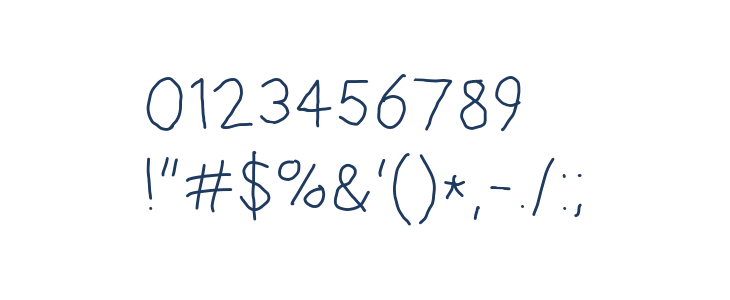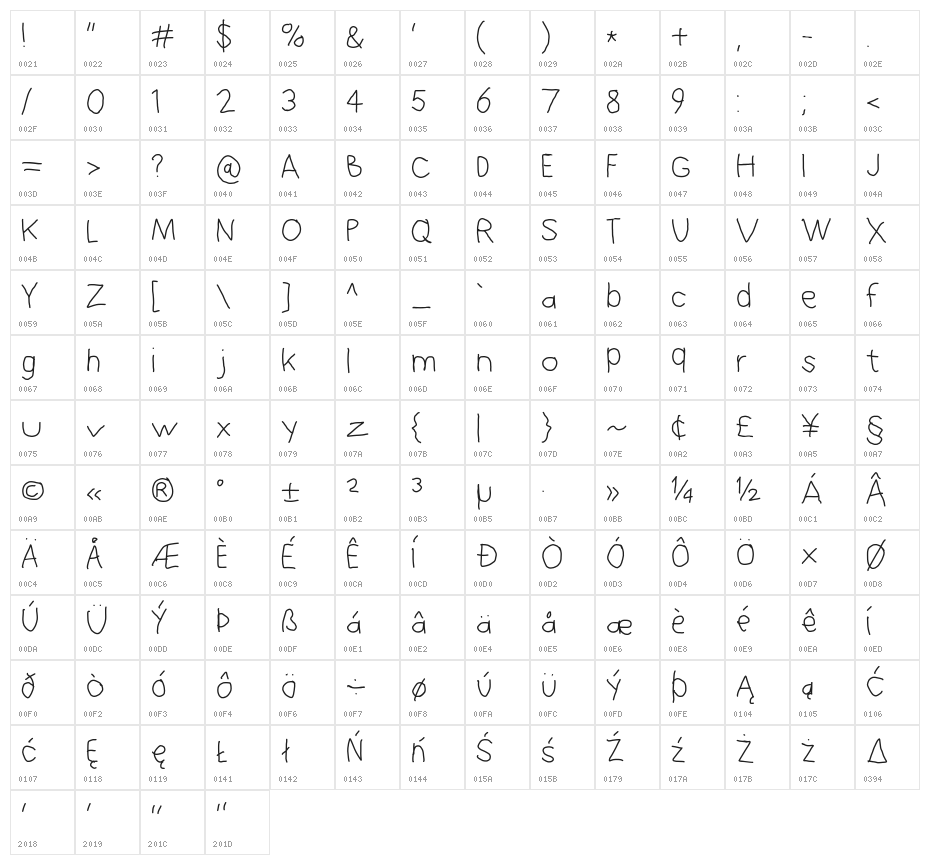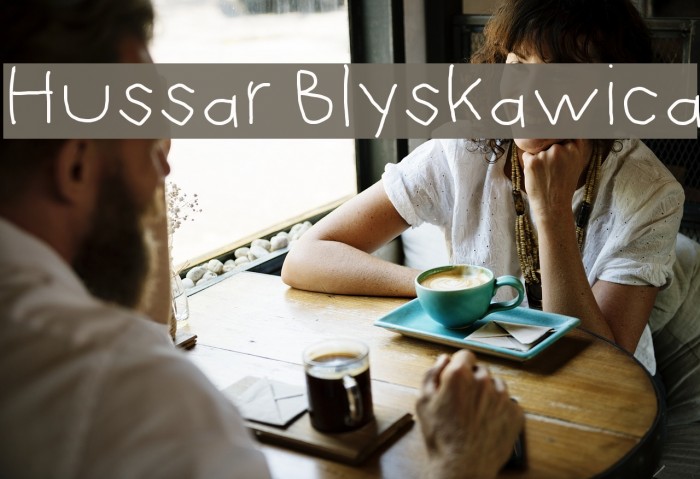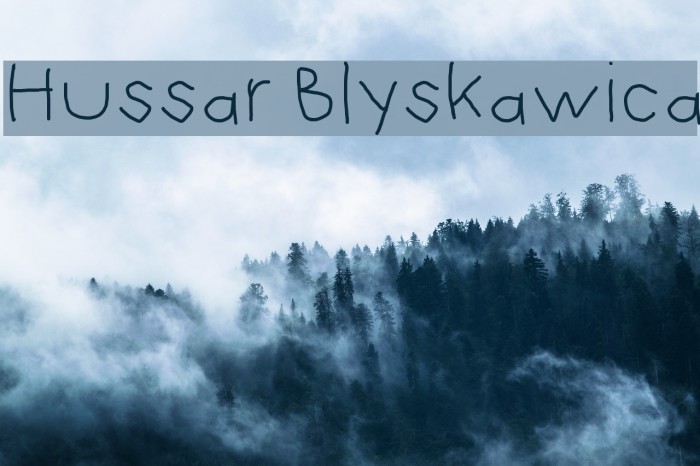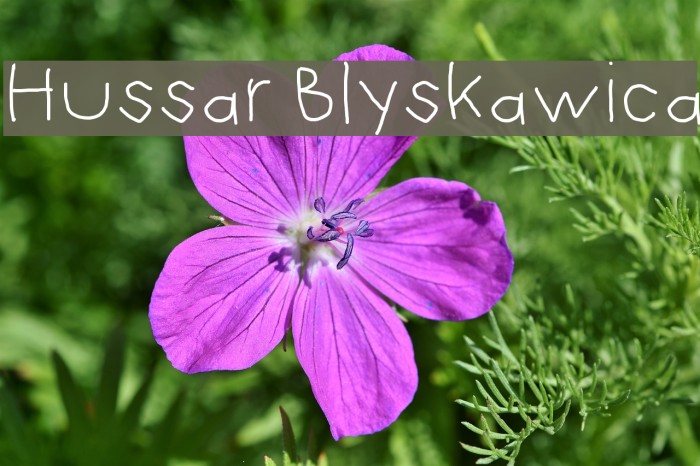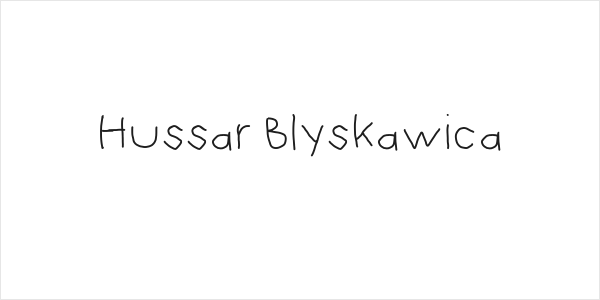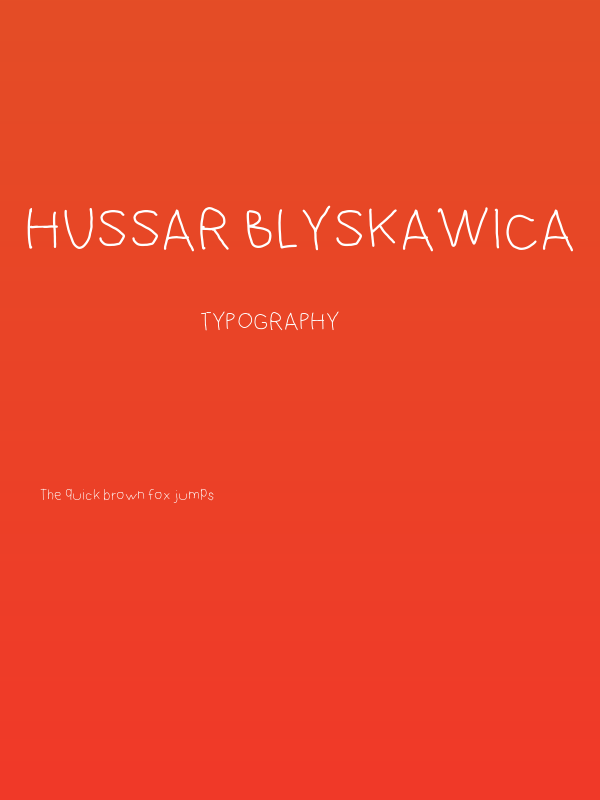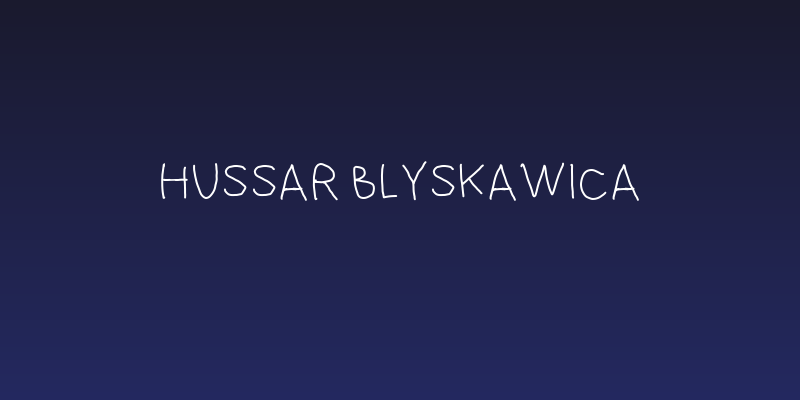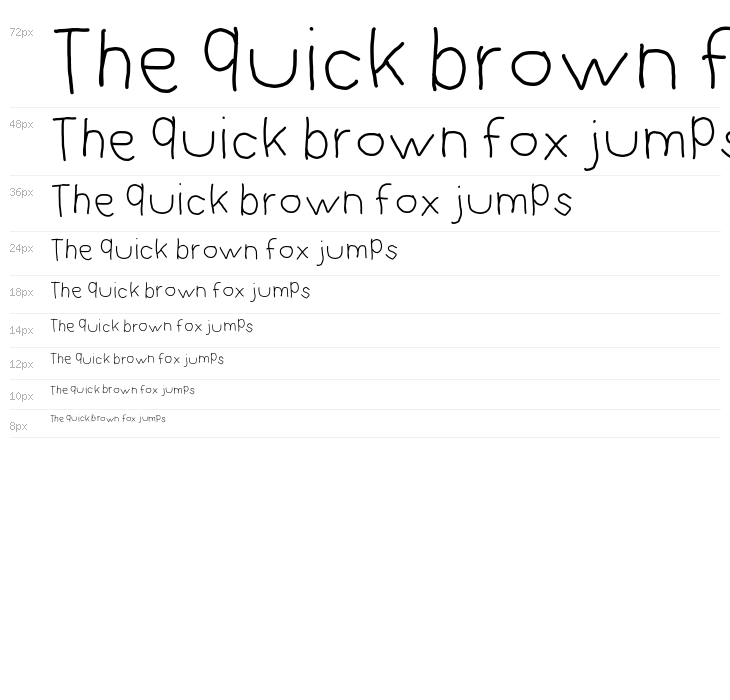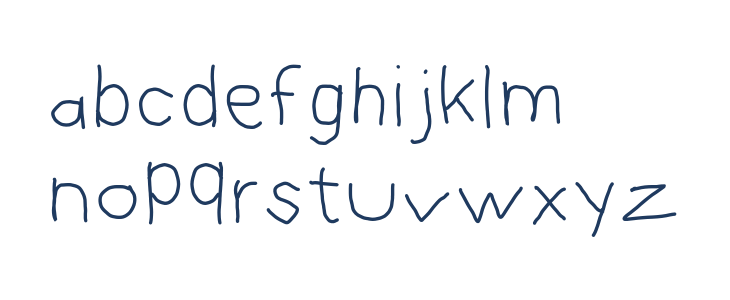
Hussar Blyskawica Font
Hussar Blyskawica Description
This font features a playful, handwritten style with a casual and informal appearance. The letters are slightly irregular, giving it a charming and approachable feel. The strokes are consistent in width, providing a uniform look across all characters. The uppercase letters are tall and slightly narrow, while the lowercase letters maintain a balanced proportion. Numbers and special characters follow the same handwritten aesthetic, making the font versatile for various uses. Its simplicity and readability make it suitable for projects that require a personal touch.
Overall StyleCasual
Use CaseHeadlines, Informal text, Personal projects
Proposed ProjectsIdeal for greeting cards, children's books, personal blogs, and informal branding.